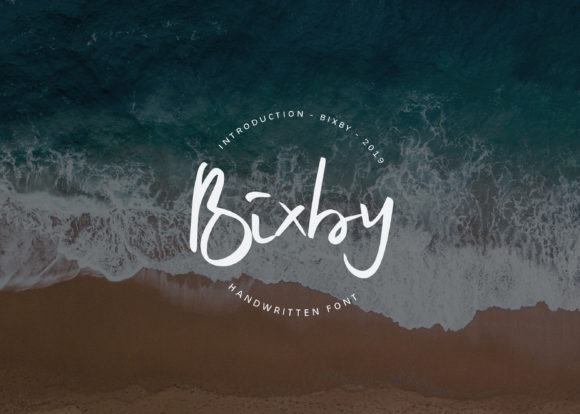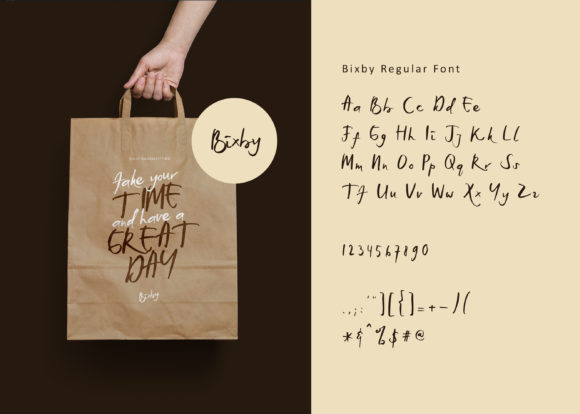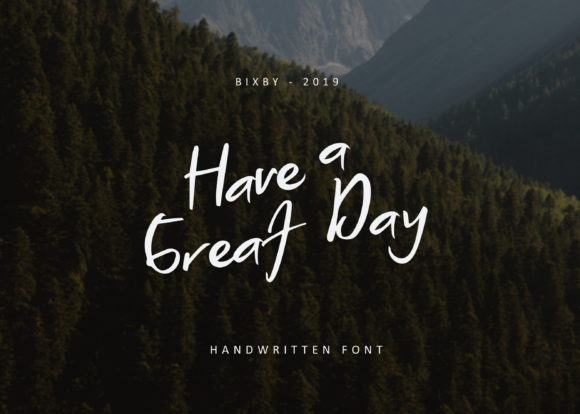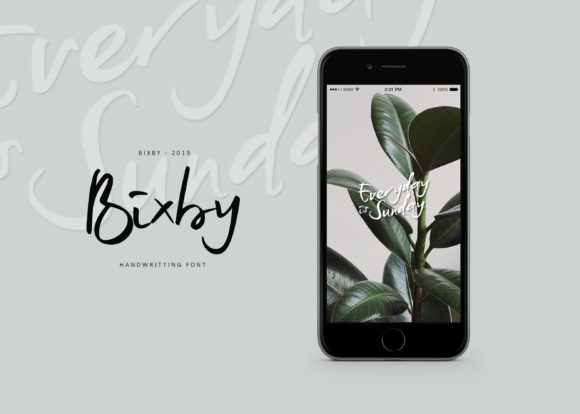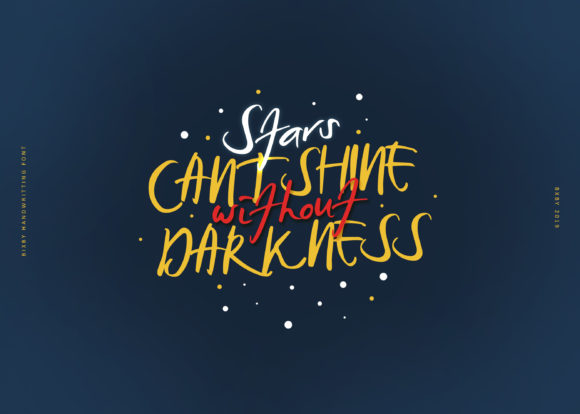
Bixby Font
About Bixby Font
The Bixby us a simple, yet cool font. It has a great readability and is perfect for creating your own background design, branding, quotes and much more!